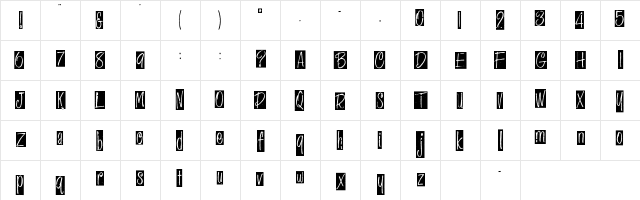
Design Context for 2Peas Thrift Store Chair Typeface
2Peas Thrift Store Chair is a composed and adaptable typeface that performs quietly and consistently across a wide range of design contexts.